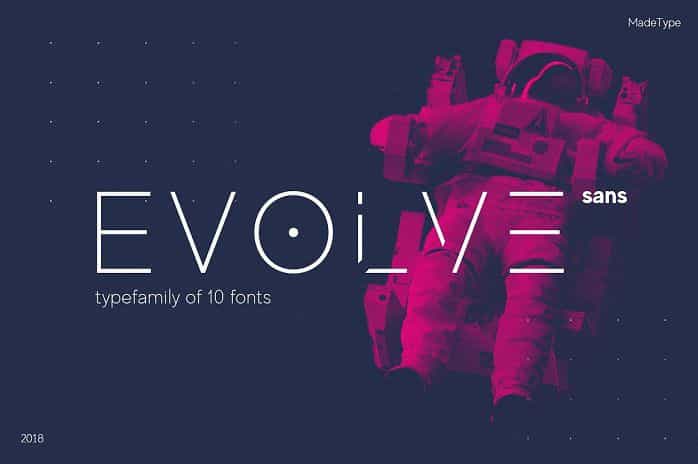
Introducing Evolve Sans. It is MadeType designed. MADE Evolve is a modern and futuristic sans-serif font family. The futuristic and geometric mix becomes a modern design. The MADE Evolve family comprises 10 fonts, 5 sans serif weights, and 5 weights with futuristic caps, which brings up more flexibility. It is impeccable sans serif to vary your headlines, branding visual identity, poster, logo, magazines and etc.